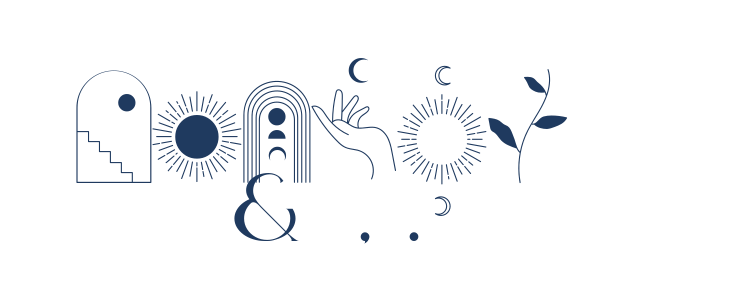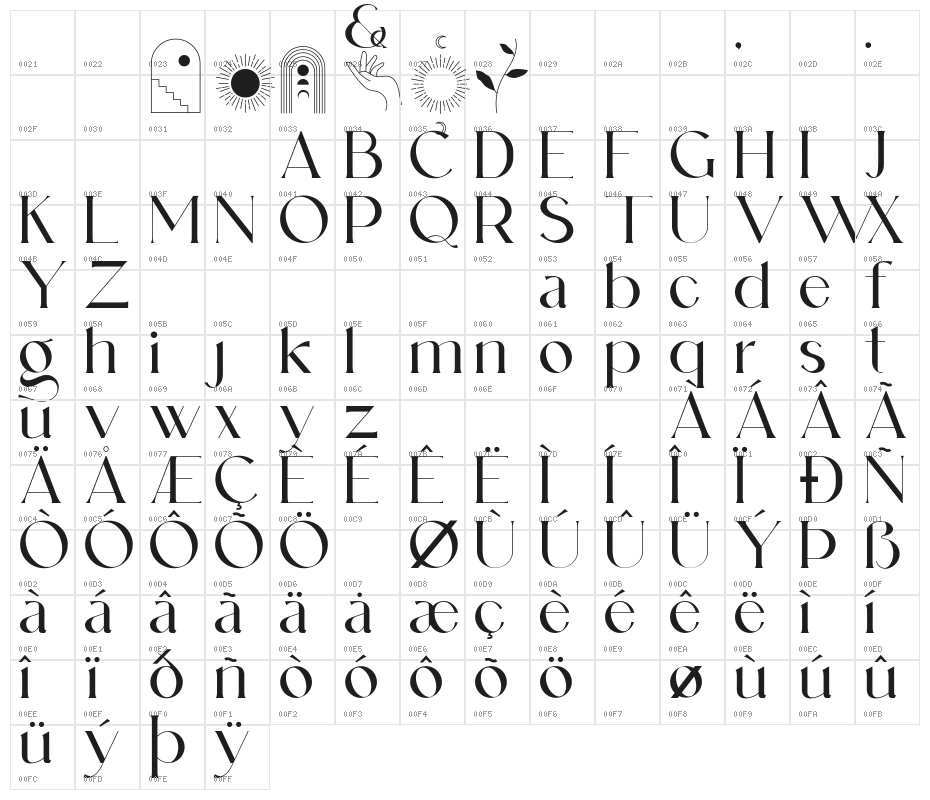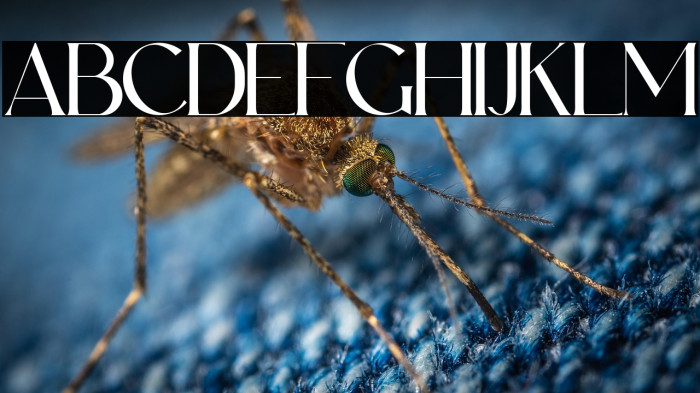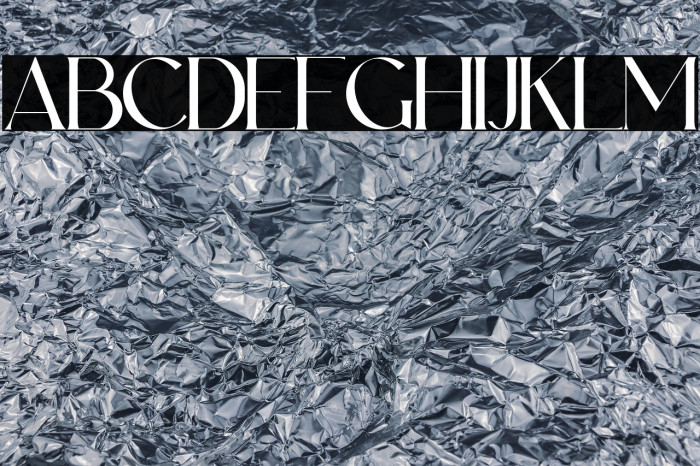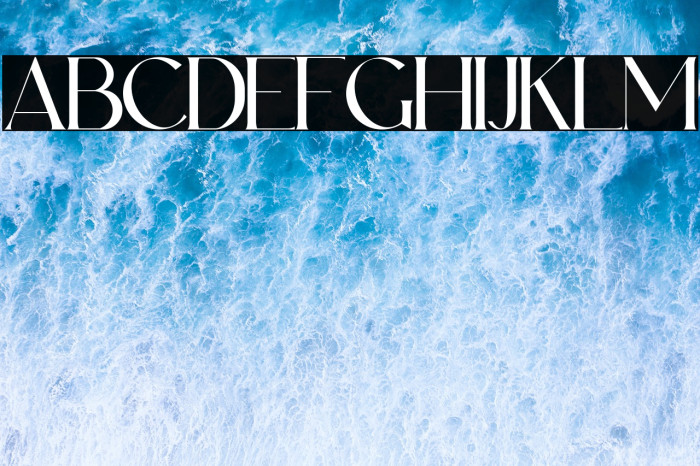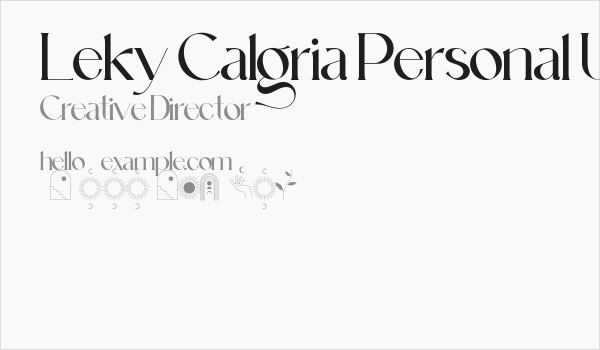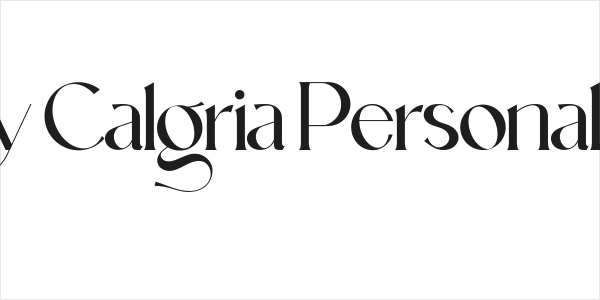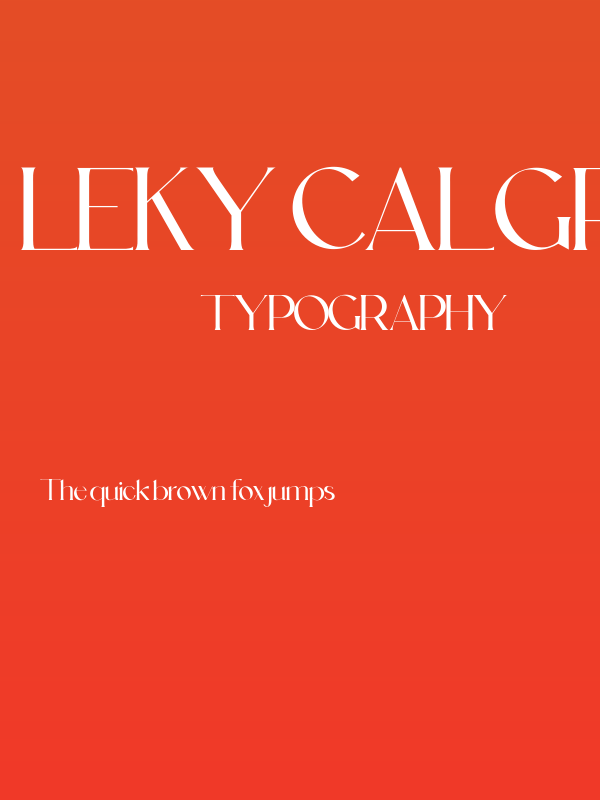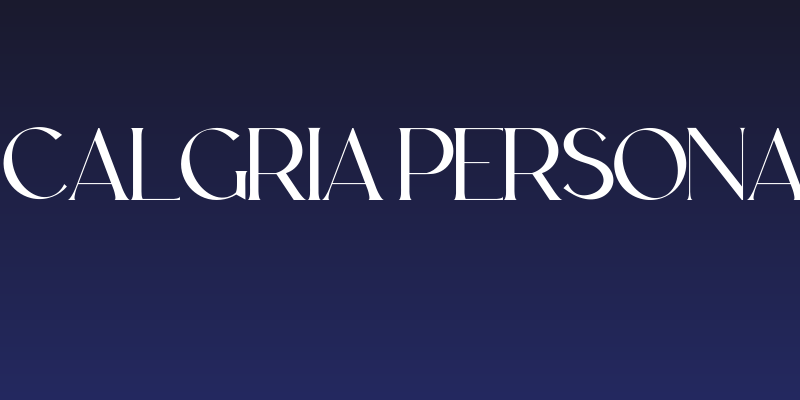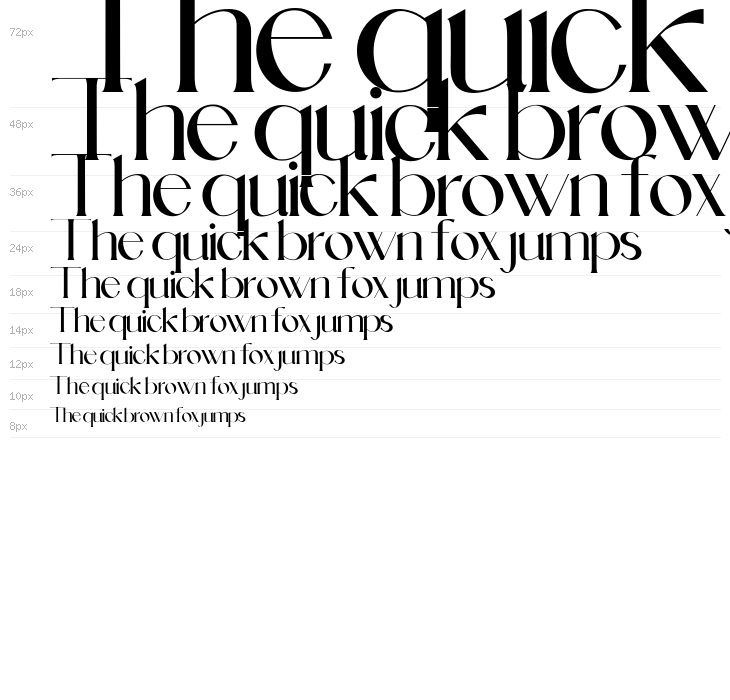
Leky Calgria Personal Use Font
Leky Calgria Personal Use Description
This font features a modern and elegant design with a high contrast between thick and thin strokes, giving it a sophisticated and stylish appearance. The uppercase letters are tall and slender, while the lowercase letters maintain a consistent flow with unique curves and flourishes. The special characters are artistically crafted, adding a decorative touch. The font's overall aesthetic is both contemporary and timeless, making it versatile for various design projects.
| Proposed Projects | Ideal for branding, editorial design, fashion magazines, and luxury product packaging. |